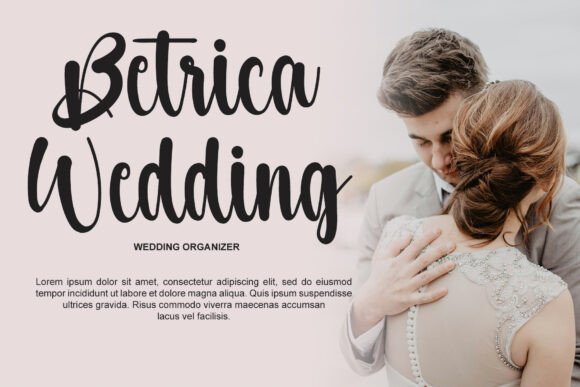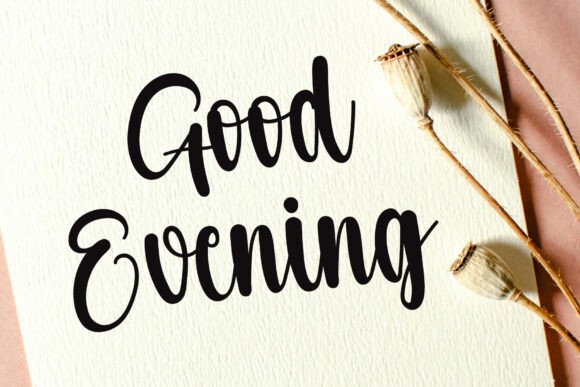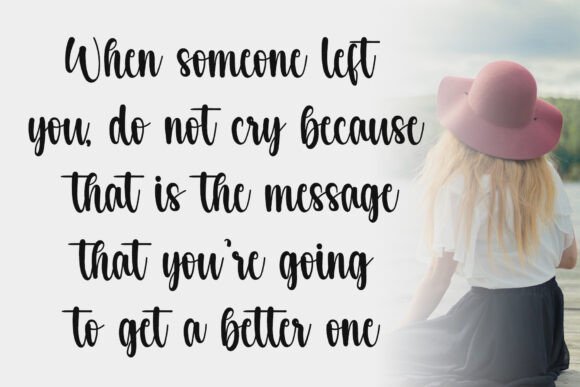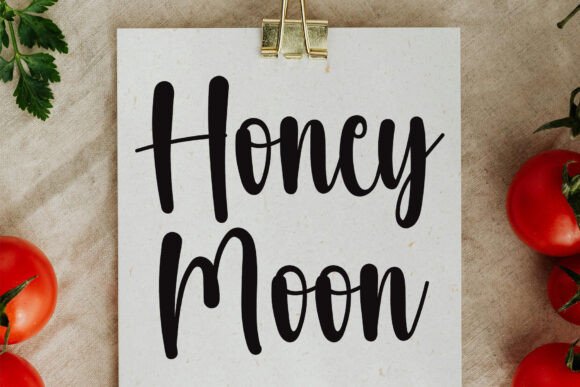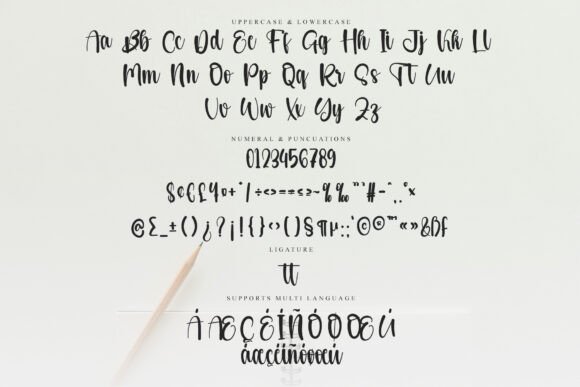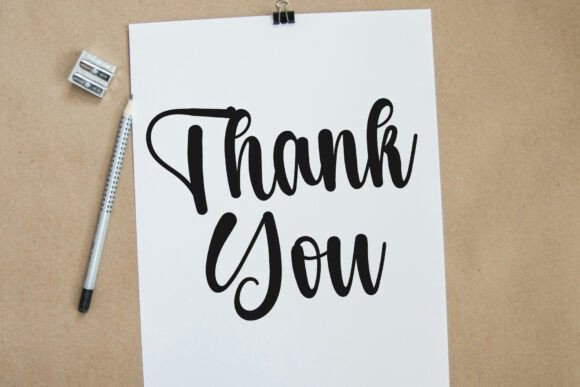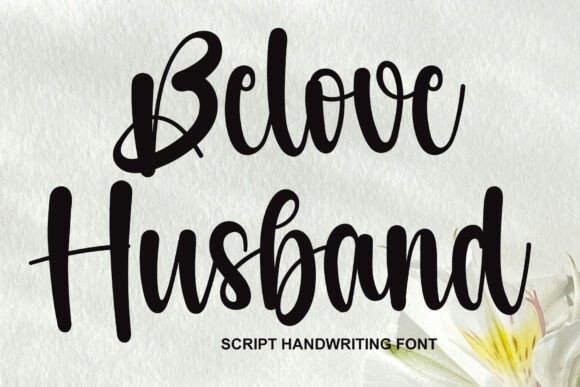
Introducing Belove Husband Font: The Epitome of Elegance and Timelessness
In the world of typography, few fonts manage to strike a balance between elegance and boldness. Belove Husband Font is one such exceptional typeface that seamlessly combines the fluidity of script handwriting with a vintage touch, exuding class and sophistication. This font is a masterpiece for designers and crafters looking to create a lasting impression with their work.
The Unique Characteristics of Belove Husband Font
Belove Husband Font boasts a distinctive set of features that set it apart from other typefaces. Its fluid strokes and graceful curves lend it an air of elegance, making it perfect for projects that demand a high level of sophistication. The dynamic flow of this font ensures that it can be used across various design applications, from stylish signatures and branding designs to nostalgic vintage aesthetics.
Perfect for Creating a Sophisticated yet Powerful Impression
Whether you’re a designer looking to create a stunning visual identity for a brand or a crafter seeking to add a touch of elegance to your projects, Belove Husband Font is the perfect choice. Its bold and timeless vintage touch ensures that your work stands out, conveying a sense of power and sophistication that is hard to achieve with other fonts.
One of the key advantages of Belove Husband Font is its versatility. This font can be used across a wide range of design applications, including:
- Branding Design: Create a lasting impression with your brand’s visual identity by using Belove Husband Font in your logo, business cards, and other marketing materials.
- Signature Design: Add a touch of elegance to your signature with Belove Husband Font, making it perfect for professionals and individuals looking to make a statement.
- Vintage Aesthetics: Create nostalgic and timeless designs with Belove Husband Font, perfect for projects that require a vintage touch.
Why Choose Belove Husband Font?
With so many fonts available, why should you choose Belove Husband Font for your design projects? Here are a few compelling reasons:
- Elegance: Belove Husband Font exudes elegance, making it perfect for projects that demand a high level of sophistication.
- Uniqueness: This font’s unique blend of script handwriting and vintage touch ensures that your work stands out from the crowd.
- Timelessness: Belove Husband Font’s timeless design ensures that your work remains relevant for years to come.
Tips for Using Belove Husband Font Effectively
To get the most out of Belove Husband Font, here are a few tips to keep in mind:
- Pair it with Neutral Colors: Pair Belove Husband Font with neutral colors to let the font’s elegance shine through.
- Experiment with Sizes: Experiment with different font sizes to create visual hierarchy and add emphasis to your design.
- Add Texture and Patterns: Add texture and patterns to your design to give it a unique and nostalgic touch.
In conclusion, Belove Husband Font is a exceptional typeface that offers a unique blend of elegance, boldness, and timelessness. Its versatility, fluid strokes, and dynamic flow make it perfect for a wide range of design applications. Whether you’re a designer or crafter, Belove Husband Font is sure to become a valuable addition to your toolkit.